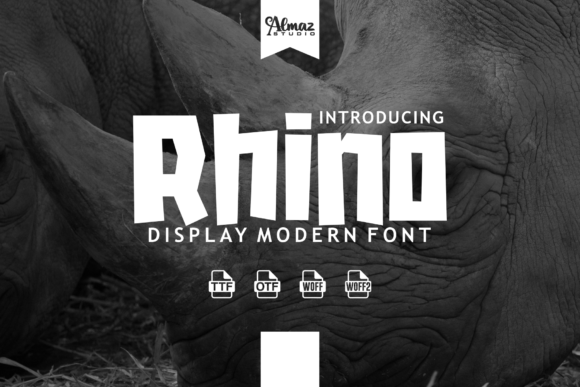
Journey into the world of Rhino Font, a whimsical and captivating display font that radiates charm and personality. Step into a realm where letters dance with joy and words come alive with a playful spirit. Discover the magic of Rhino Font and let your creativity soar to new heights.
Unleash your imagination and explore endless possibilities with Rhino Font. Its bold and playful strokes bring a touch of whimsy to any project, making it the perfect choice for adding a cheerful and lighthearted vibe to your designs. From playful posters to enchanting invitations, let Rhino Font infuse your words with a sense of joy and wonder.
With Rhino Font at your fingertips, you'll find yourself immersed in a world of creative possibilities. Its versatile nature allows it to effortlessly adapt to a myriad of design endeavors. Whether you're crafting eye-catching logos, creating vibrant social media graphics, or designing charming websites, Rhino Font will seamlessly blend with your vision, bringing a smile to the faces of your audience.
Rhino Font possesses an inherent charm that effortlessly captures attention and leaves a lasting impression. Its playful strokes evoke a sense of nostalgia, transporting you back to a simpler time when laughter and imagination reigned supreme. Let Rhino Font be your creative companion, guiding you on a journey of self-expression and artistic exploration.
Embrace the playful essence of Rhino Font and let your designs radiate with joy. Its undeniable charm will captivate your audience, leaving them with a sense of delight and wonder. Dive into the whimsical world of Rhino Font and unlock the boundless potential of your creativity.